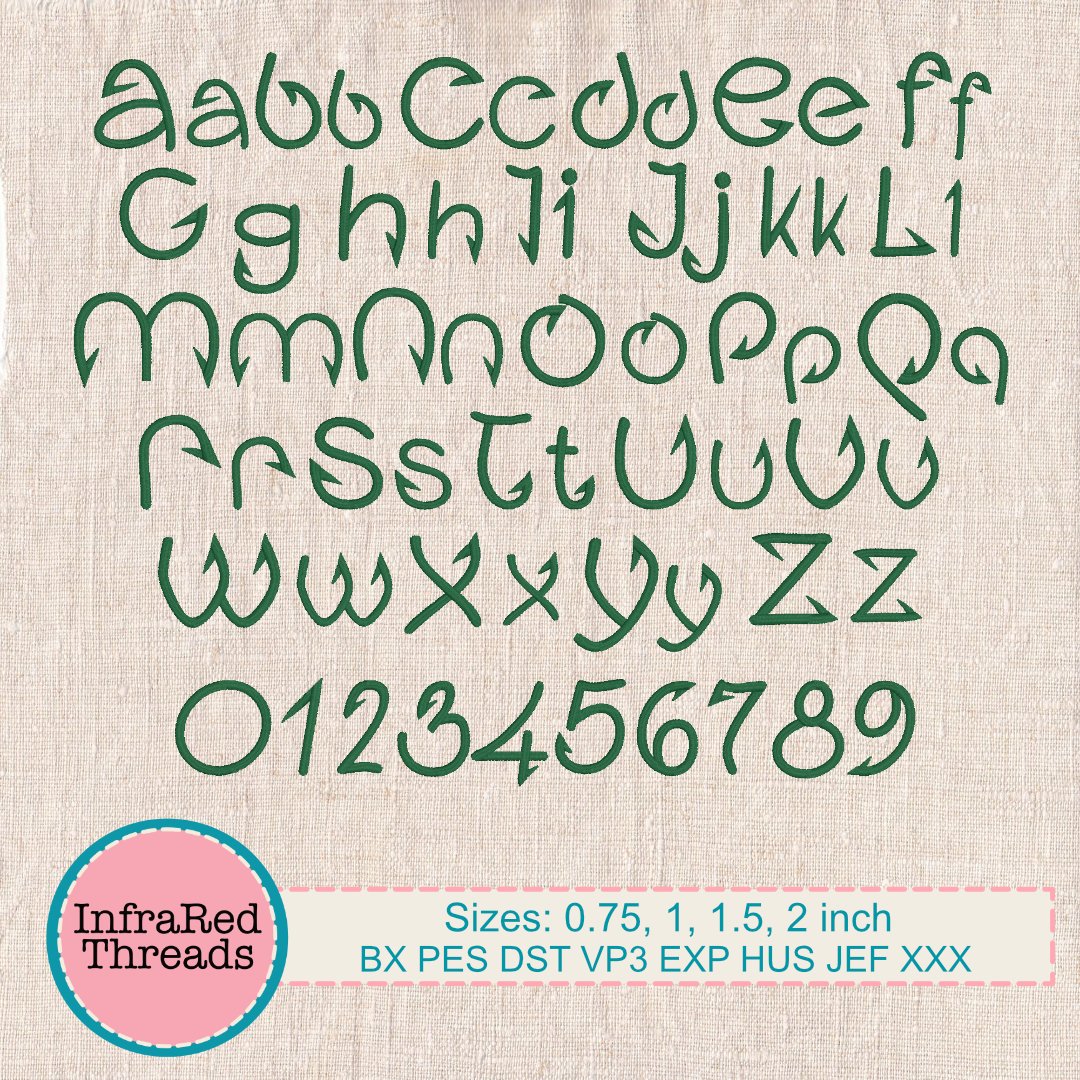
Angler Embroidery Font – Fish Hook Alphabet in 4 Sizes
The Angler Font is a bold and playful embroidery alphabet with fish hook-inspired lettering. Each character features subtle hook points and curves, making it the perfect font for fishing-themed projects, Father’s Day gifts, outdoor gear, or custom items for anglers and boaters. Designed in a clean satin stitch, this font includes uppercase and lowercase letters in four sizes, plus BX format for effortless use in Embrilliance.